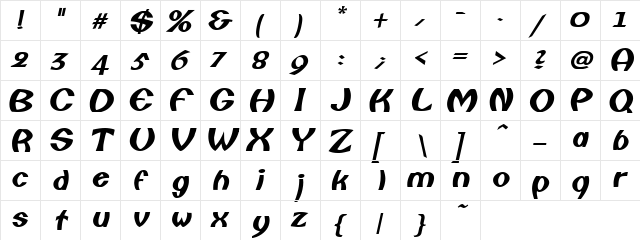
Fisherman BoldOblique
Design Context for Fisherman Typeface
Fisherman is a composed and adaptable typeface that performs quietly and consistently across a wide range of design contexts. The slanted form adds forward momentum and visual energy. Its bold stroke weight gives it real presence on the page.
Pro Tip: Use Fisherman for emphasis, pull quotes, and subheadings where its slanted energy can add rhythm to the layout.